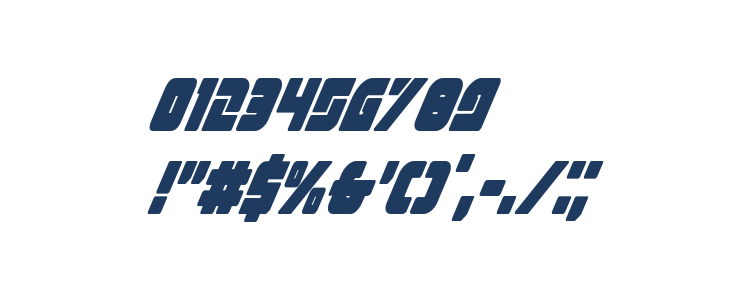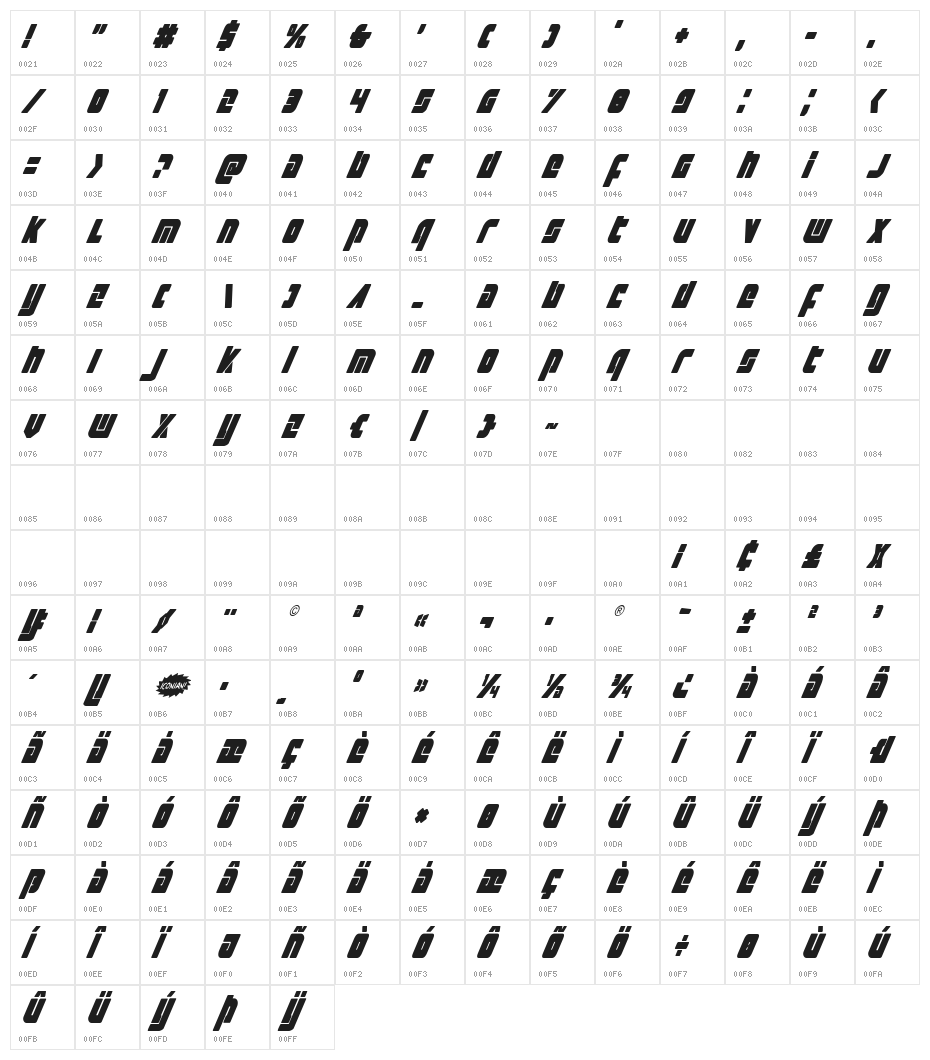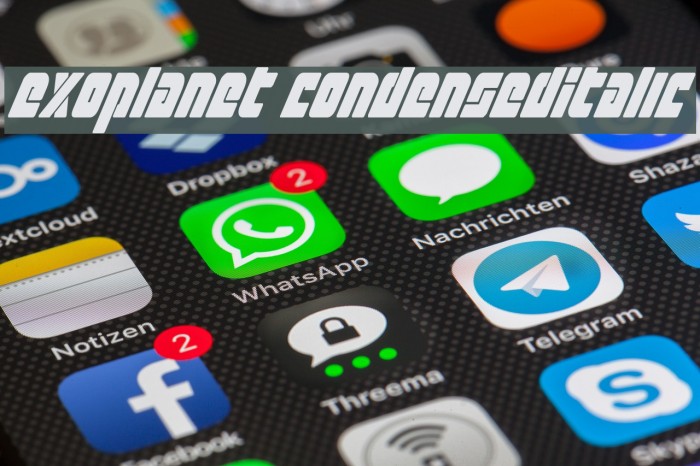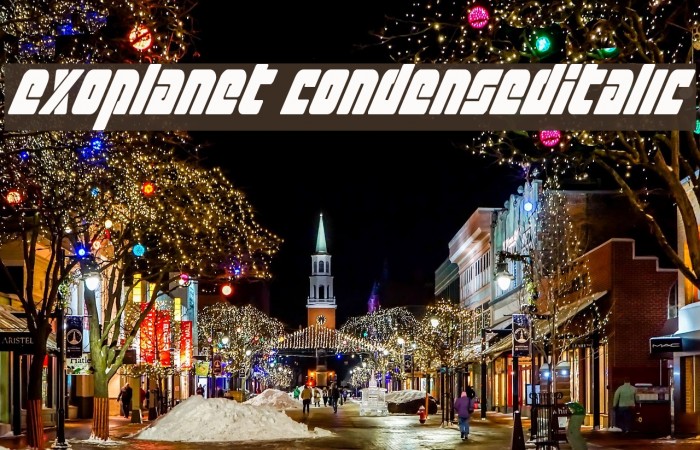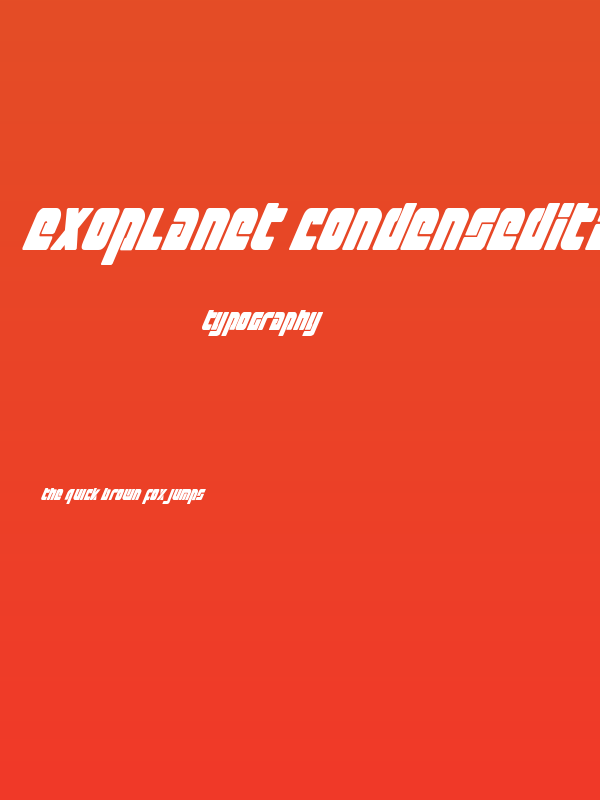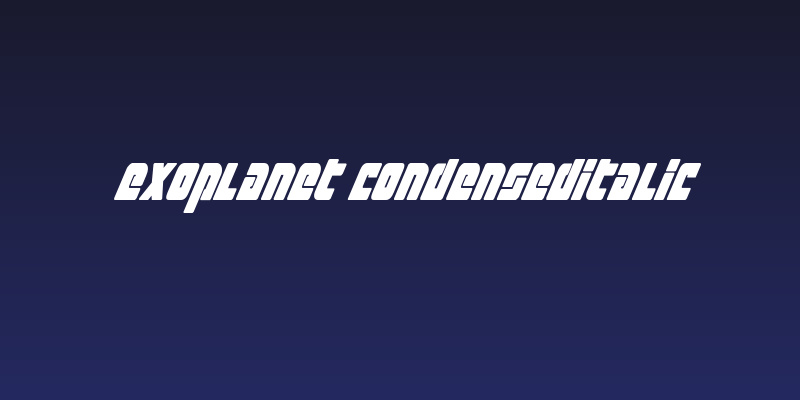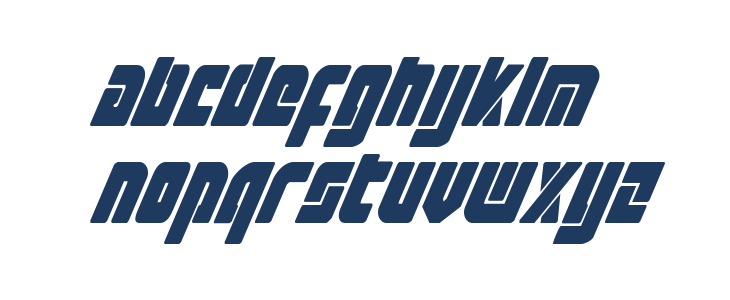
Exoplanet CondensedItalic Font
Exoplanet CondensedItalic Description
This font features a bold and futuristic design with a condensed and italicized style. The characters are sharply angled, giving a dynamic and forward-moving appearance. The strokes are thick and consistent, providing a strong visual impact. The overall design is sleek and modern, suitable for projects that require a bold statement. The uppercase and lowercase letters maintain a uniform style, enhancing readability while preserving the unique aesthetic. The numbers and special characters are equally stylized, ensuring cohesion across all text elements.